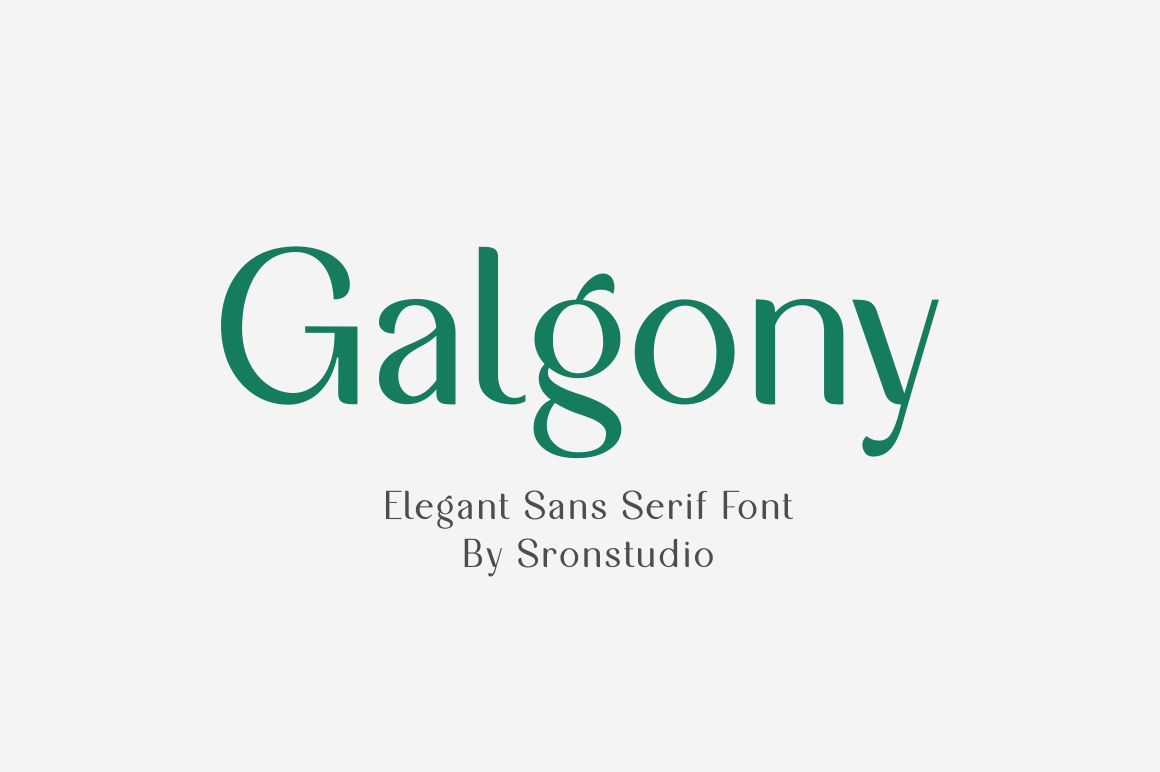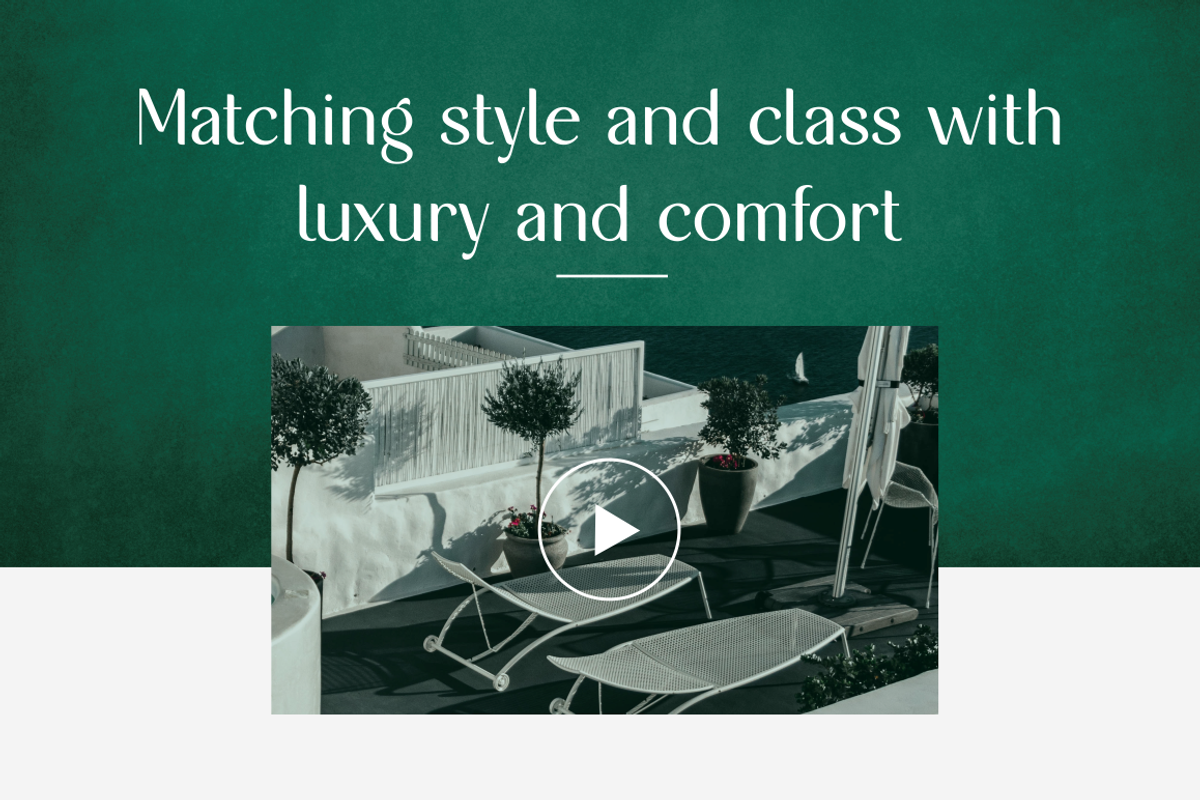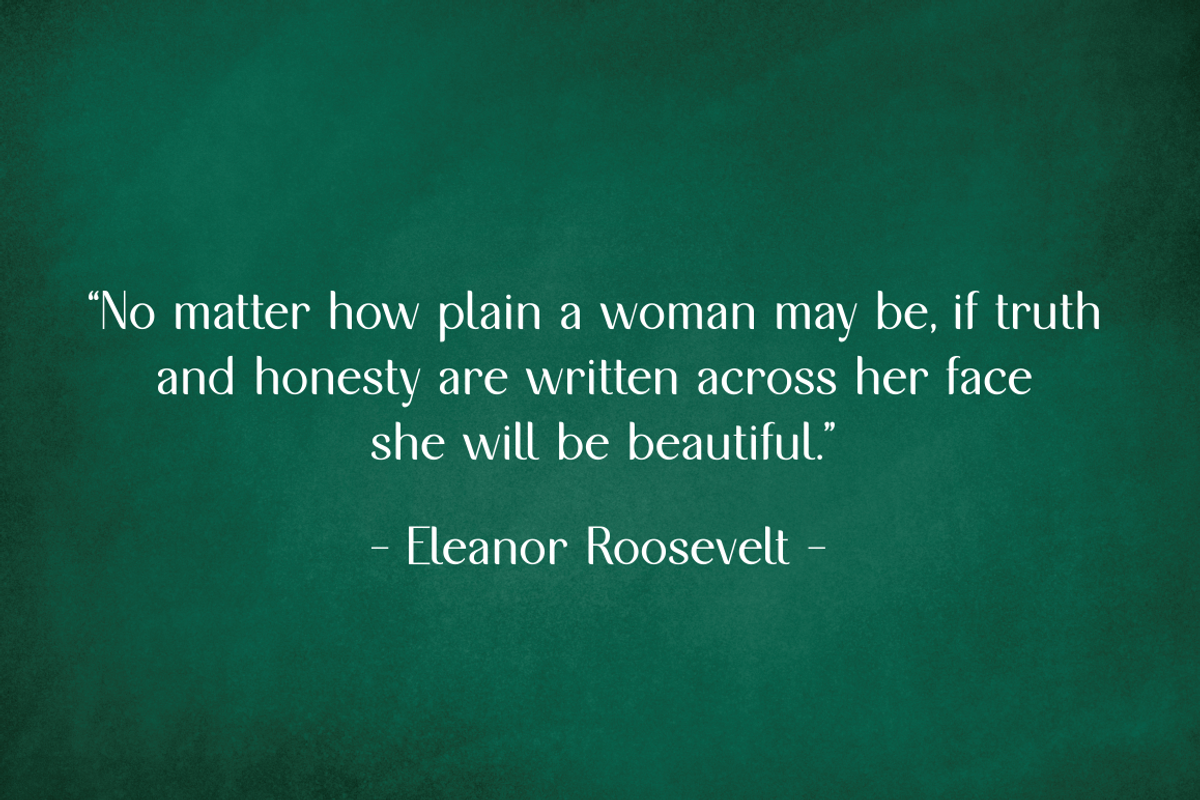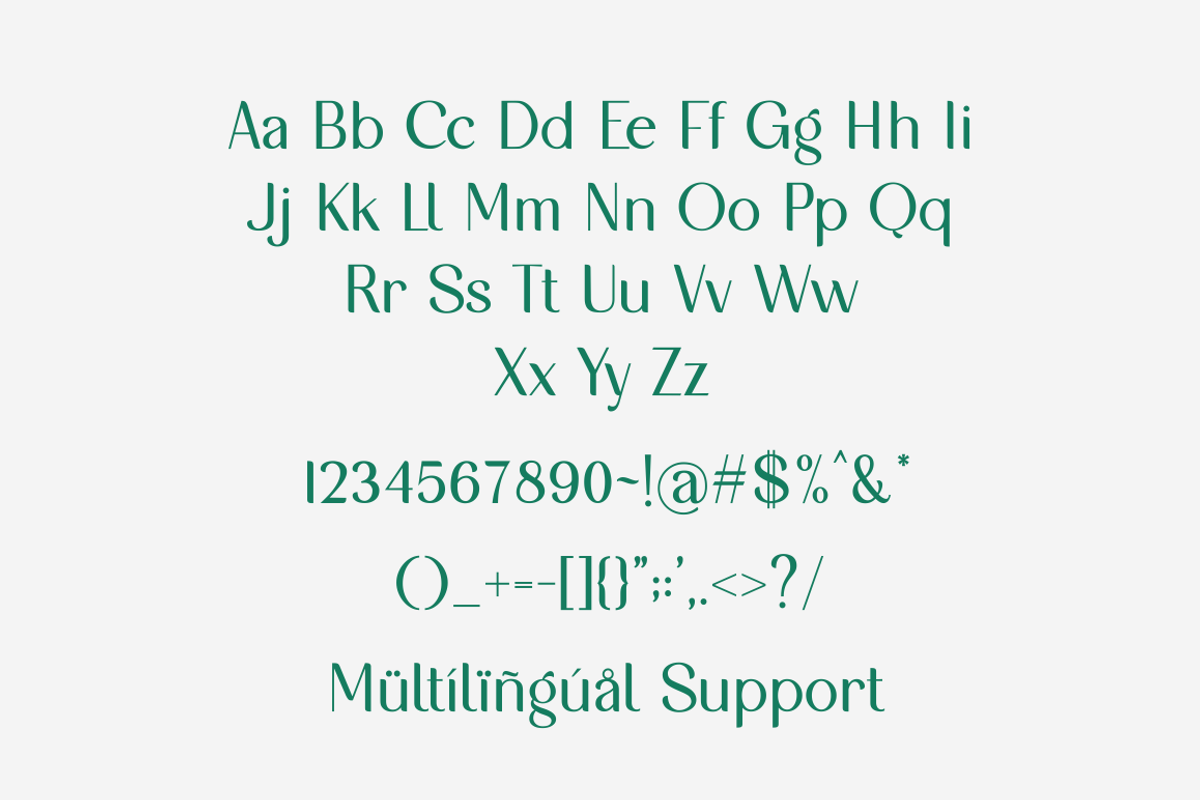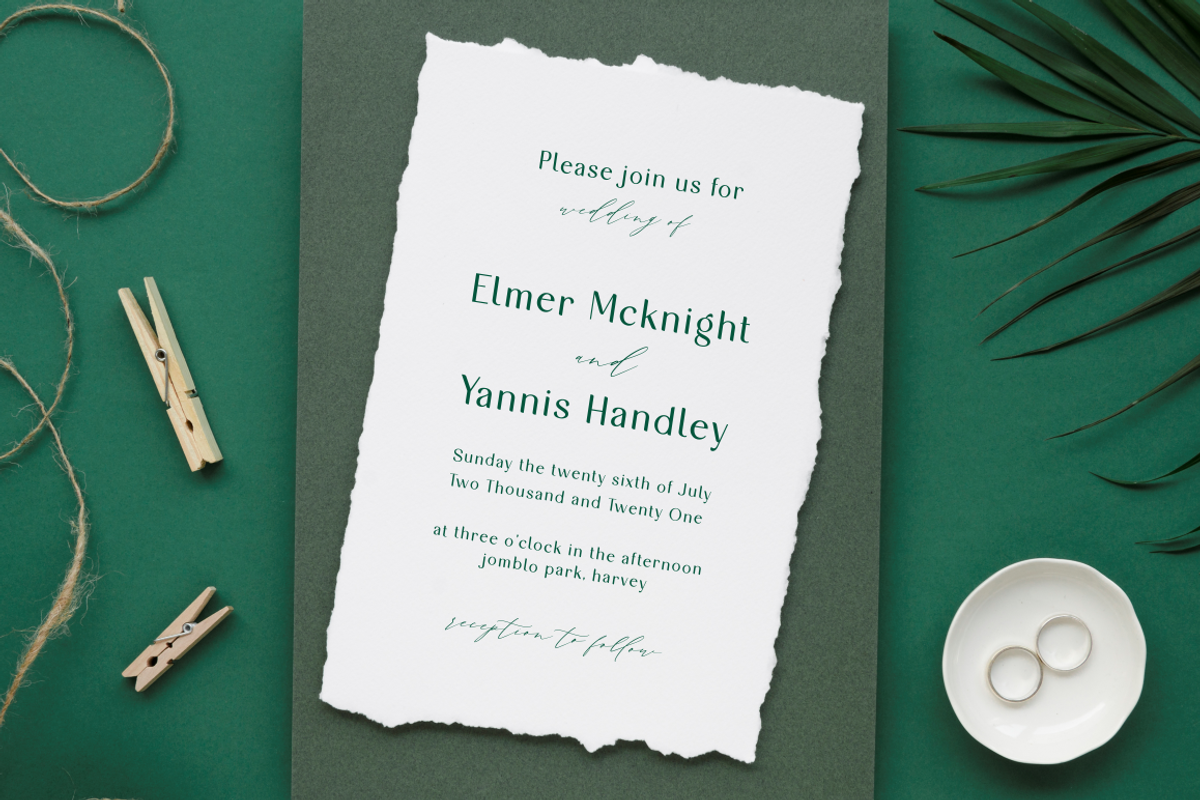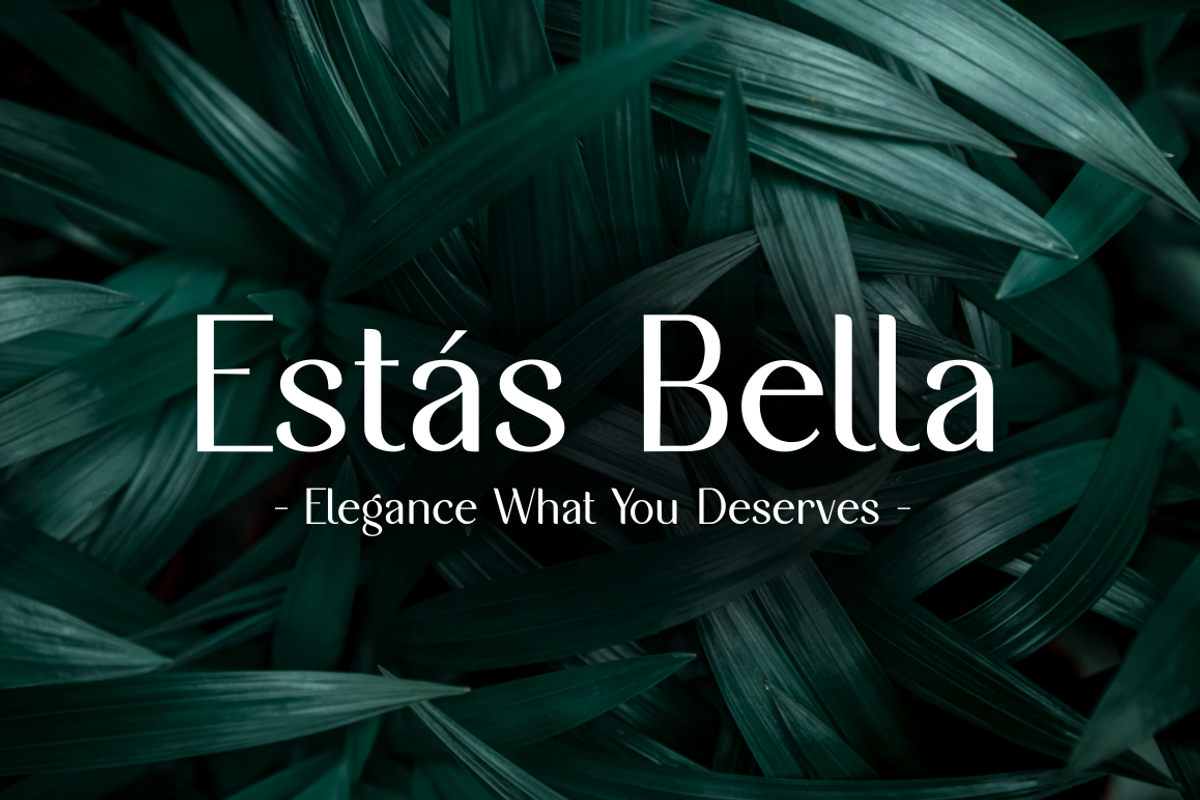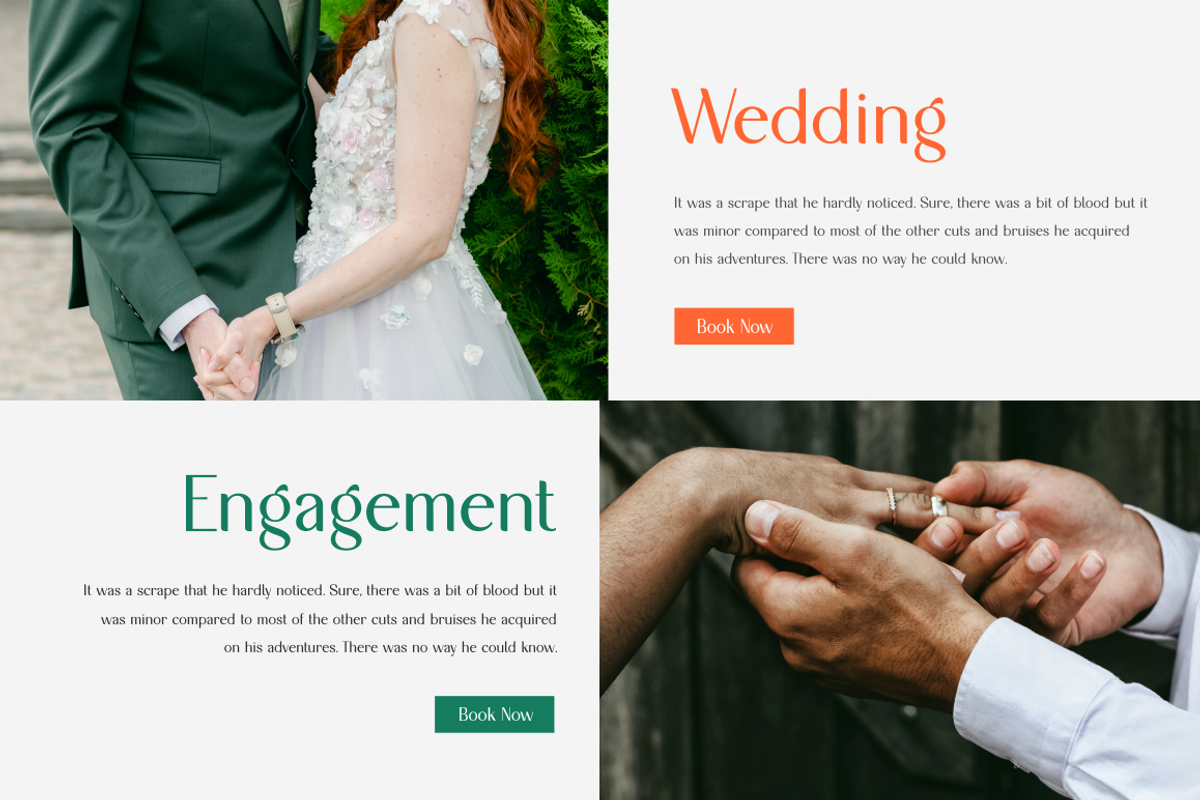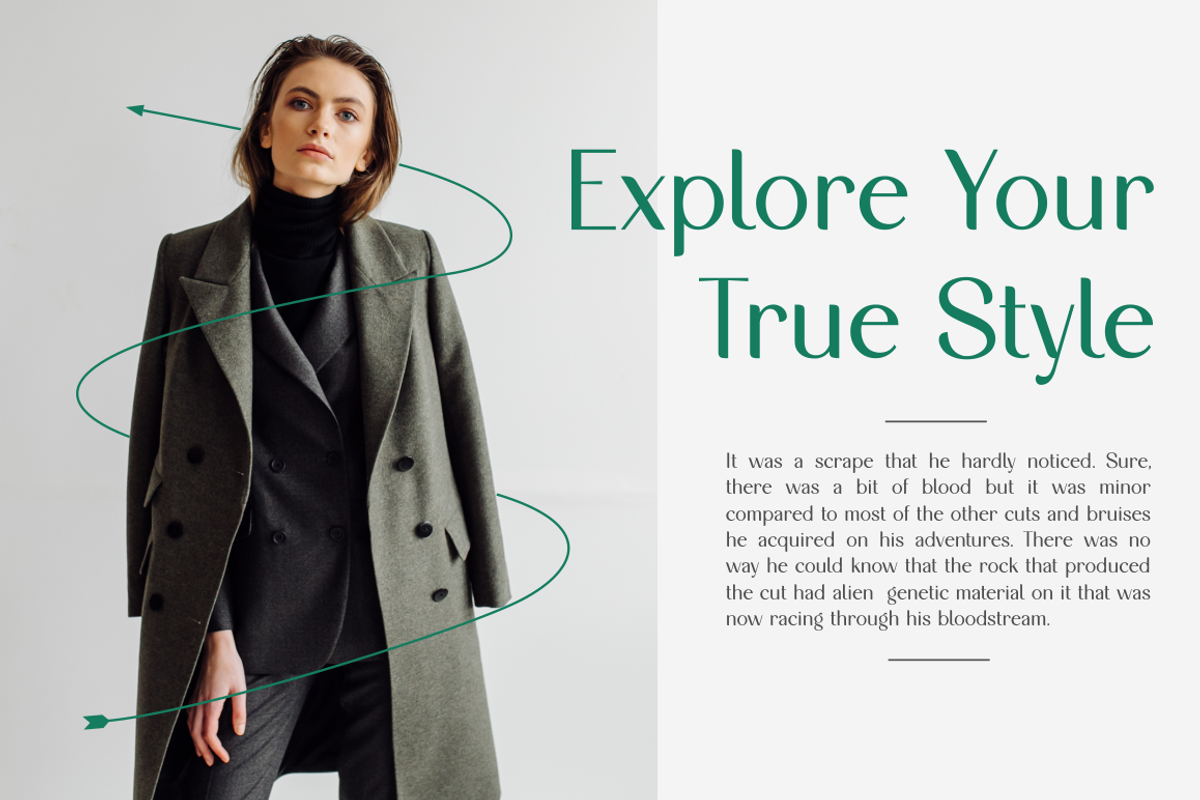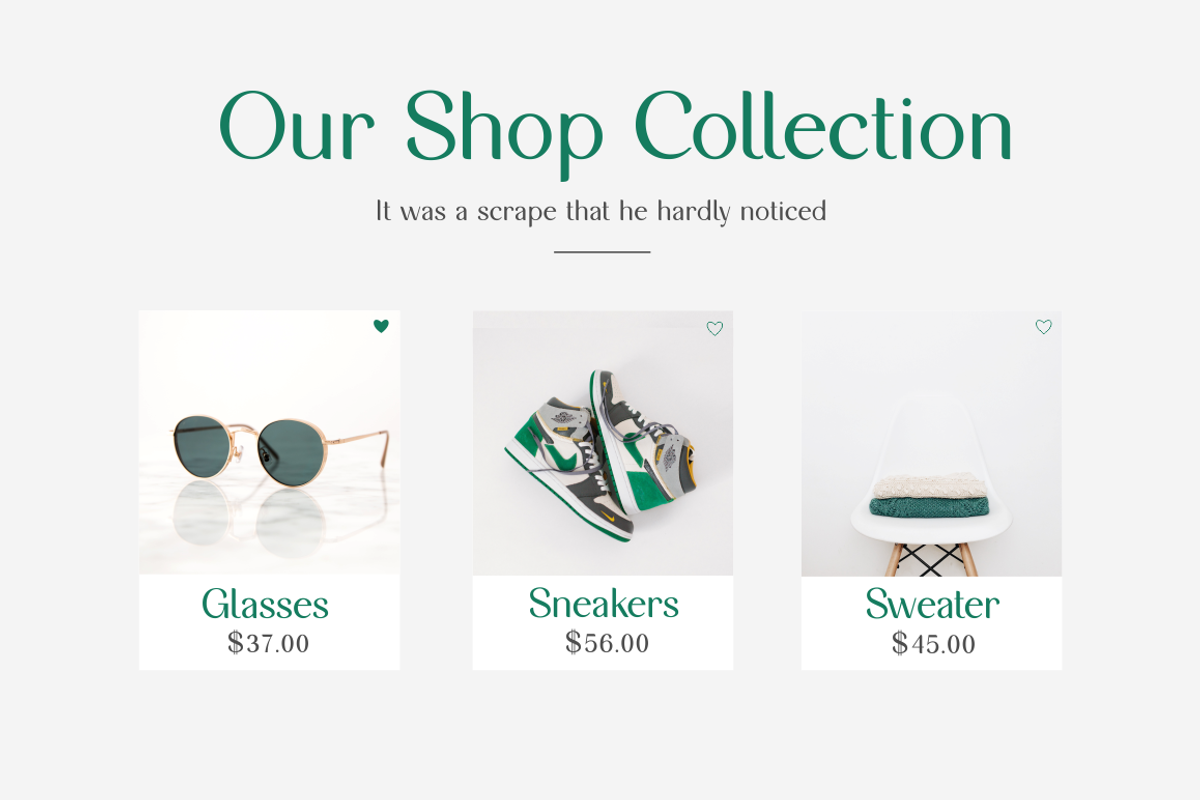
Galgony - Elegant Sans Serif Font
Galgony – Elegant Sans Serif Font, this font perfect for branding, invitation, stationery, wedding designs, social media posts, advertisements, product packaging, product designs, label, photography, watermark, special events, and more.
- Uppercase and lowercase letters
- Multilingual symbols, numerals, and punctuation